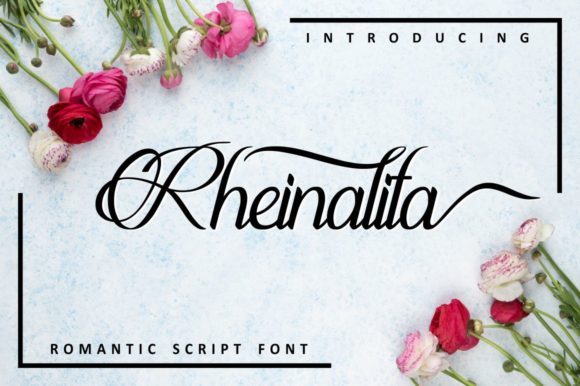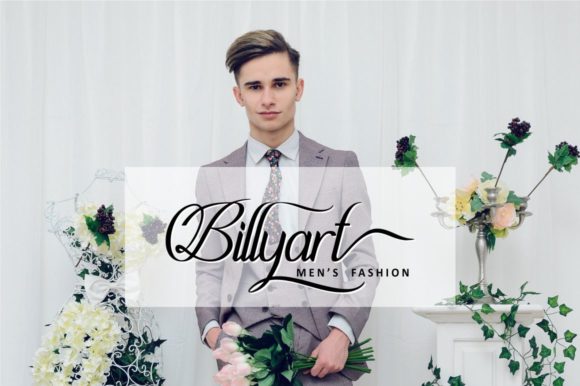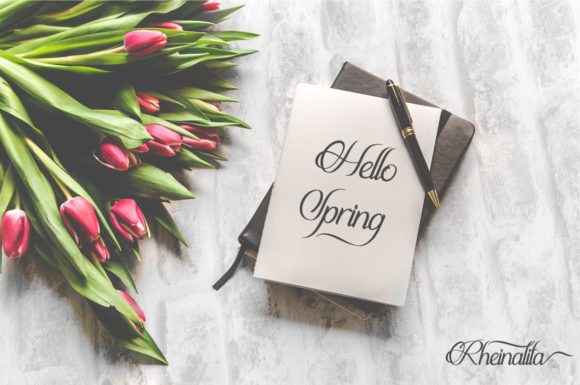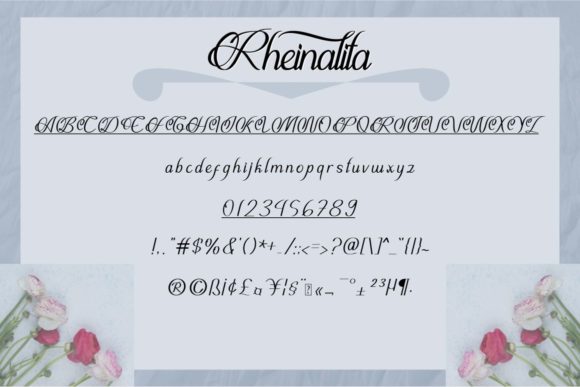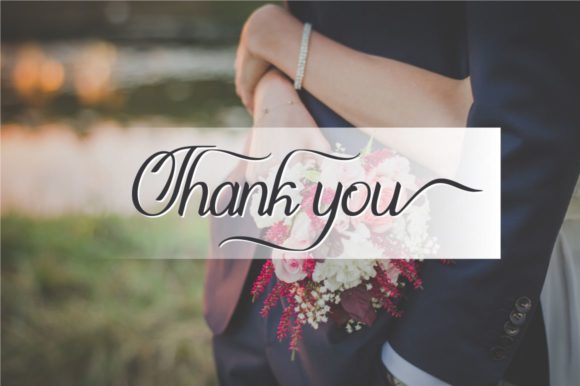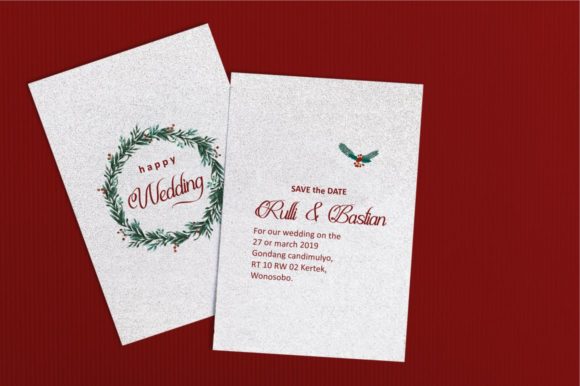
Rheinalita Font
About Rheinalita Font
Rheinalita is a sweet and playful handwritten font with a lovely twist. Get inspired by its uniquely authentic charm.